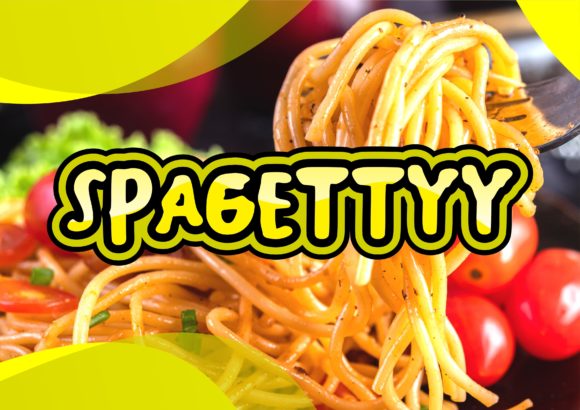
Prepare your taste buds for a typographic feast with Spagettyy Font, the delectable display font that tantalizes your visual senses like a master chef. This playful and charming font is a culinary delight, brimming with the flavors of appetizing curves and delectable ligatures, sure to satisfy your creative hunger.
Feast your eyes on the delectable letterforms, each handcrafted with meticulous attention to detail, promising to add a dash of charm and a dollop of uniqueness to your designs. Let Spagettyy Font be the secret ingredient that transforms your projects into mouthwatering masterpieces, leaving your audience craving for more.
Indulge in the diverse range of culinary-inspired characters that are ready to dance across your designs like a symphony of flavors. From scrumptious swirls to tantalizing twirls, Spagettyy Font has it all, offering endless possibilities to tickle the taste buds of your imagination.
Savor the casual vibe and informal style of Spagettyy Font, a perfect match for projects craving a relaxed and approachable touch. Let its easygoing nature be the garnish that adds a dash of warmth and familiarity to your creations.